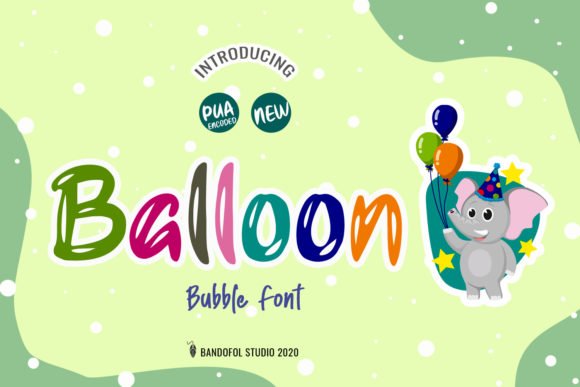
The Perfect Font for a Happy Feeling
Have you ever stared at a blank canvas, feeling stuck and unsure of where to start your next creative project? You scroll through your font library, searching for the perfect combination of style and personality to bring your vision to life. And then, it hits you – the playful, whimsical feeling that only comes from using the right font. For designers, finding that special font can make all the difference between a good design and a great one.
That’s where the Ballon Font comes in – a cheerful, bubble font that’s guaranteed to put a smile on your face and a spring in your step. Whether you’re designing book covers, film titles, or even just a simple quote for social media, the Ballon Font is the perfect choice for adding a touch of whimsy and fun to your work.
Ballon Font Key Features
- Unique Characteristics: Ballon Font features a distinctive, rounded design with exaggerated curves, making it ideal for creating playful and whimsical designs.
Designer Review: Ballon Font
As a designer, I was excited to dive into the Ballon Font and see what it had to offer. Here’s my honest review.
- The Ballon Font is highly customizable, allowing users to adjust the weight, width, and style to fit their design needs.
- The font is designed to be modern and elegant, making it a great choice for branding and digital applications.
- The Ballon Font supports a wide range of languages, including English, Spanish, French, and many more.
- The Ballon Font is a sans-serif font, which may not be suitable for designs that require a more traditional or serif look.
- The font may not be as versatile in smaller text sizes, which can make it difficult to read in certain contexts.
- The Ballon Font is a relatively new font, and as such, it may not have the same level of polish and refinement as more established fonts.
The Ballon Font is a solid choice for designers looking for a modern and customizable sans-serif font. While it may have some limitations, its strengths make it a great option for branding, digital applications, and other design projects. With some careful consideration and use, the Ballon Font can be a valuable addition to any designer’s toolkit.
Tips for Getting the Most Out of Ballon Font
Here are some tips to get the most out of Ballon Font:
- Use it for playful and whimsical designs.
- Pair it with bold and bright colors for maximum impact.
Here are some common use cases for Ballon Font:
- Party invitations and decorations.
- Children’s book covers and illustrations.
Alternatives to Ballon Font
Ballon Font is a popular font used for various design purposes, but sometimes it’s necessary to explore other options to suit specific needs. Here are a few alternatives to consider:
Great Vibes Font is a modern, elegant script font suitable for titles, headings, and any text that requires a touch of sophistication. It’s ideal for wedding invitations, event branding, or any design project that demands a high-end feel. Compared to Ballon Font, Great Vibes has a more refined and polished look, making it perfect for formal occasions.
Alex Brush Font is a handwritten font that exudes a sense of warmth and creativity. It’s perfect for designs that require a personal touch, such as greeting cards, posters, or social media graphics. Compared to Ballon Font, Alex Brush has a more organic and playful feel, making it ideal for casual and creative projects.